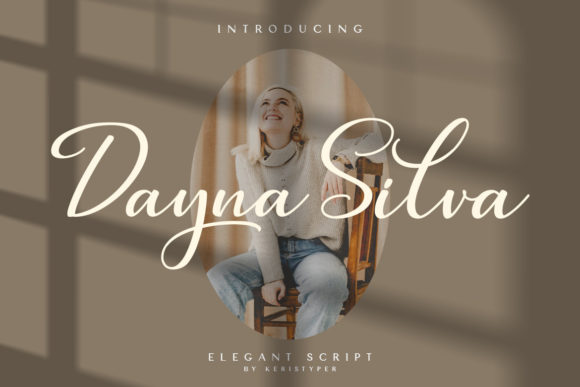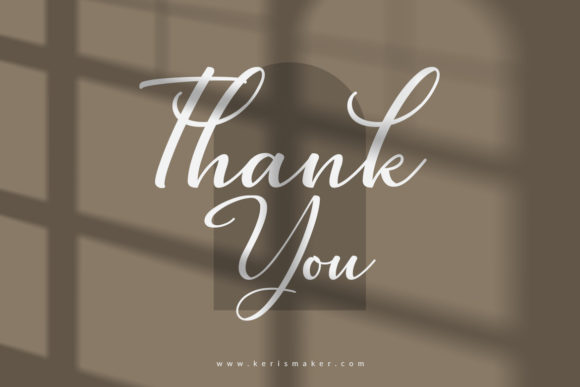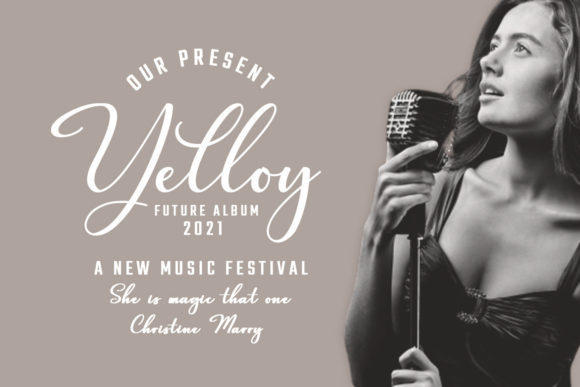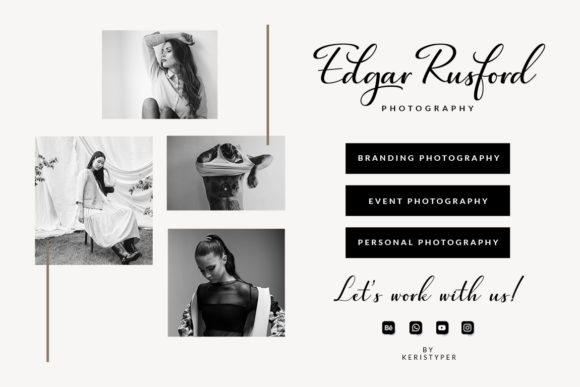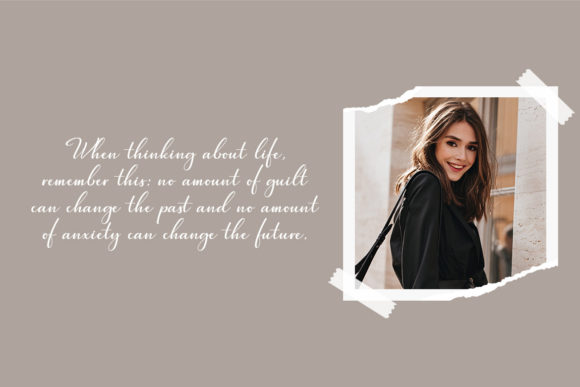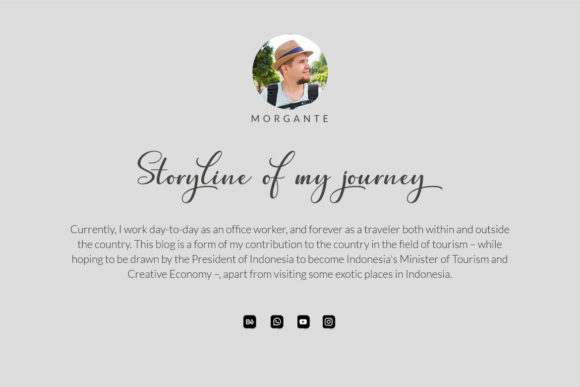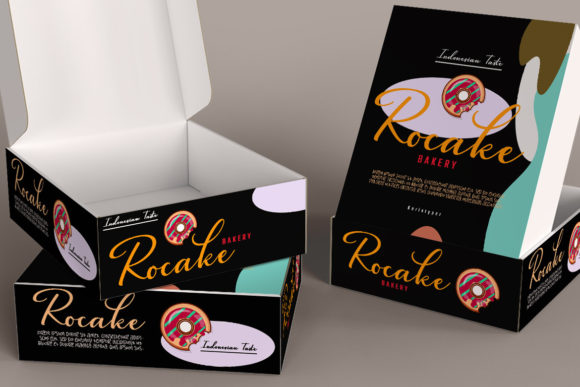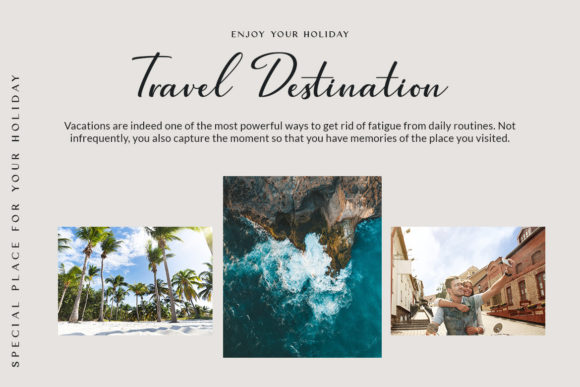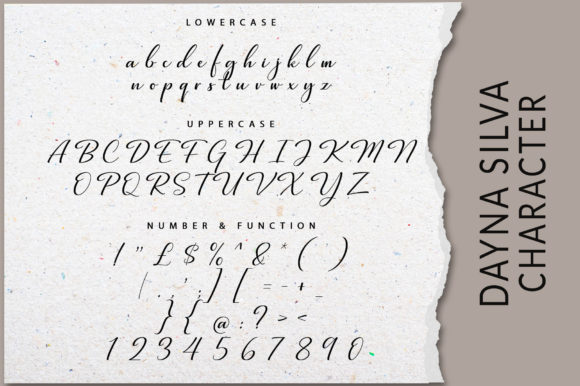
Dayna Silva Font
About Dayna Silva Font
Dayna Silva is a modern handwritten script font designed with lovely touches. Dayna Silva will work perfectly for fashion, e-commerce brands, trend blogs, wedding boutiques or any business that seeks to appear upscale and chic.